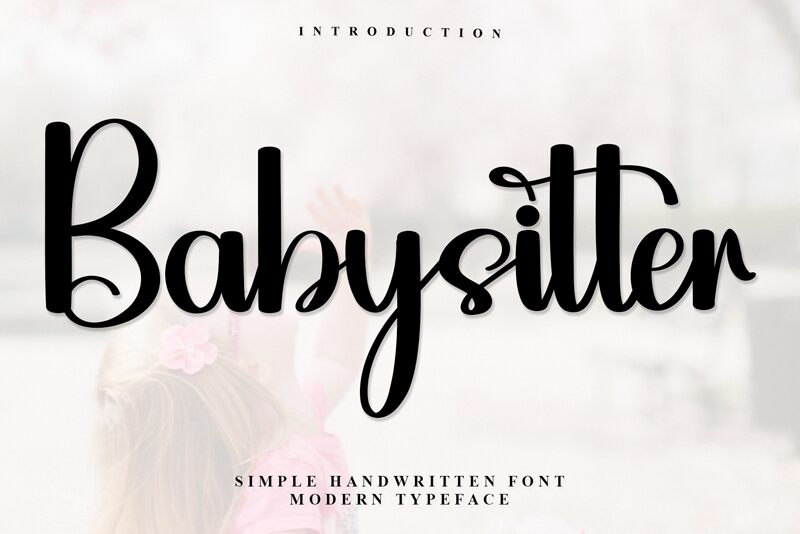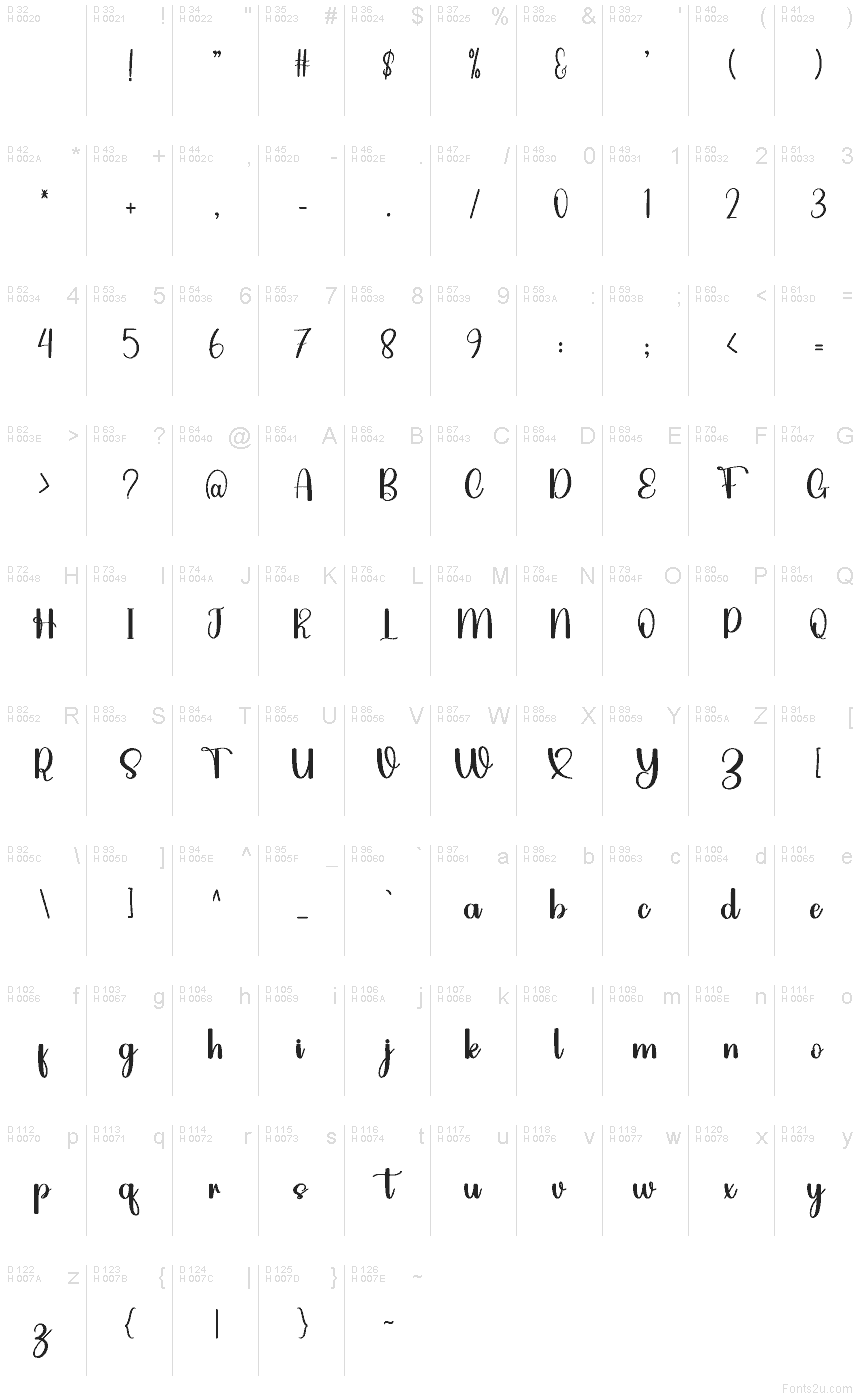
Babysitter
Babysitter font by Inermedia Studio is a free brush script typeface. Smooth, inky strokes swing into generous loops, while a gentle bounce keeps the word lively without getting messy. The letters feel soft and hand‑painted, with friendly curves and a touch of whimsy that reads clearly even at medium sizes.
Using Babysitter, your kid-facing projects gain warmth right away. It shines on baby shower invitations, nursery prints, birthday signage, toy packaging, daycare logos, and playful Instagram quotes. The rhythm is upbeat yet steady, so headlines hold together and short phrases pop. Pair this free font with a clean rounded sans for details, and let Babysitter carry the cheerful mood.